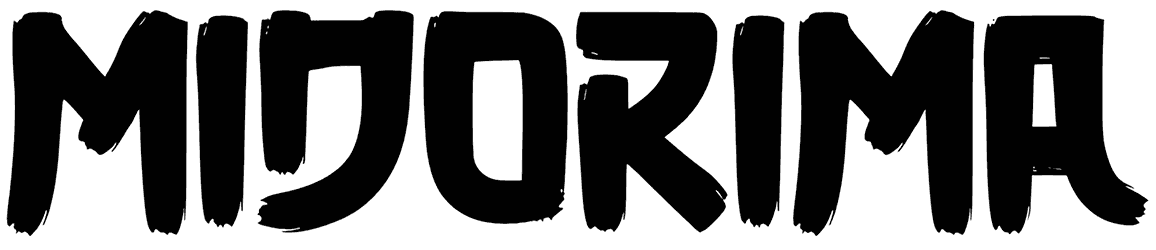
Midorima Font
Have you ever thought about using a Japanese font for writing? So, seeing Midorima can encourage you to do this. This Japanese font has traces of brush at the end of letters, which conveys the feeling of being handwritten.
This font can be combined with modern and traditional designs and give a sense of elegance to your designs. This handmade font offers a mixture of lowercase and uppercase letters for use in book titles, social media, website titles, and presentations.